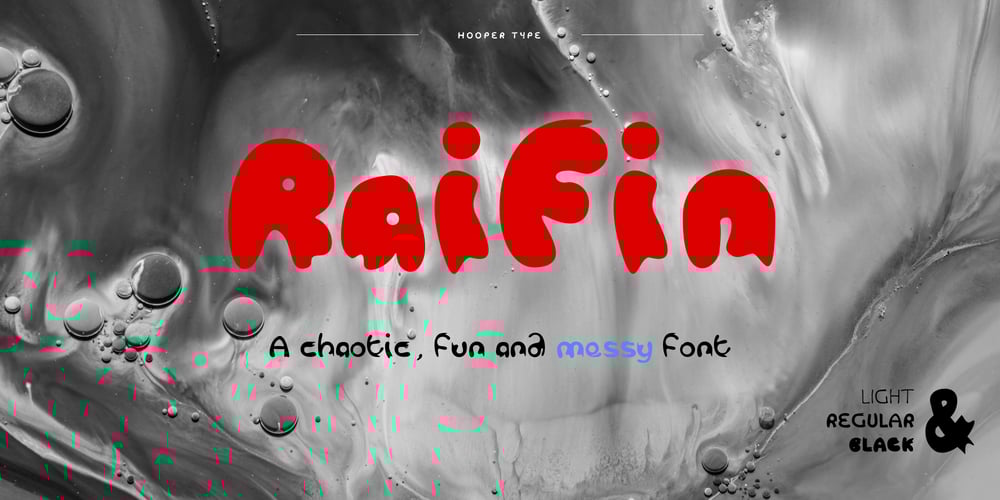
Raifin Font Family was designed by Christos Hooper and published by Hooper Type. Raifin contains 3 styles and family package options. Out with the old in with the BOLD. Raifin is a messy, gory and fantastical piece of work which shoves two fingers up at conformity. A title font, a copy font, a bonkers font. An experimentation of the rules, or lack thereof. Enjoy!